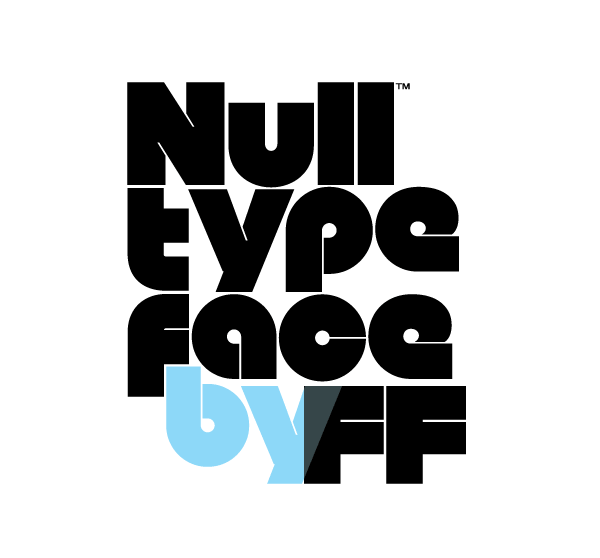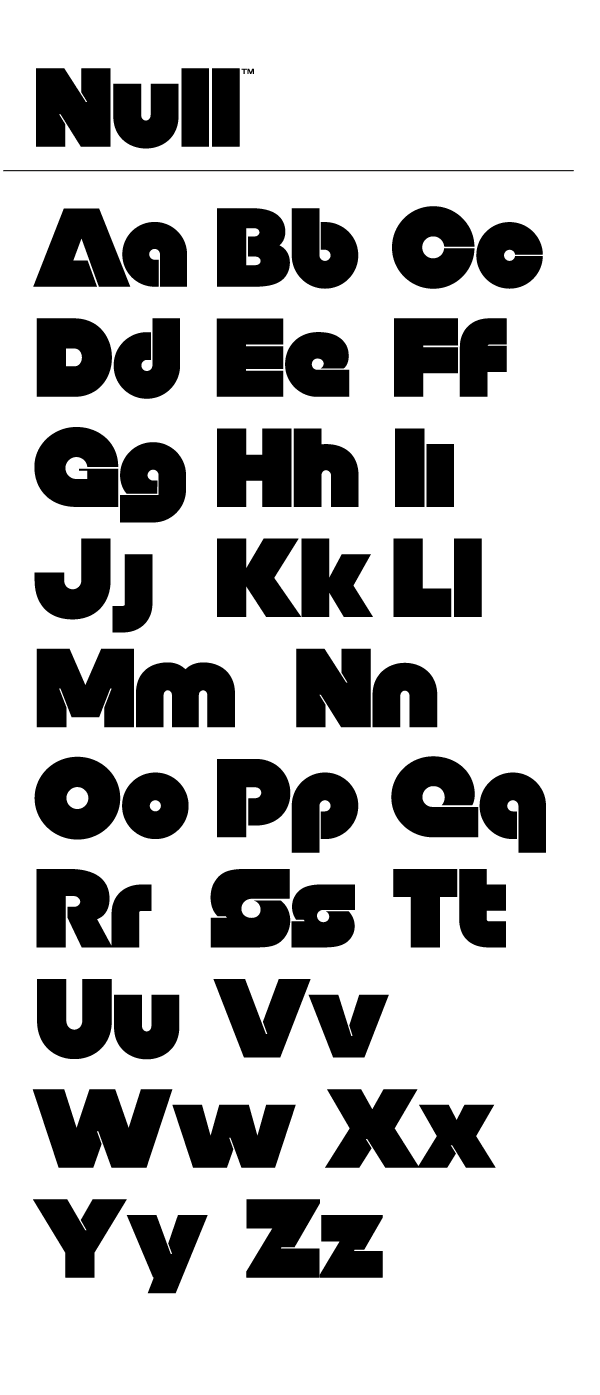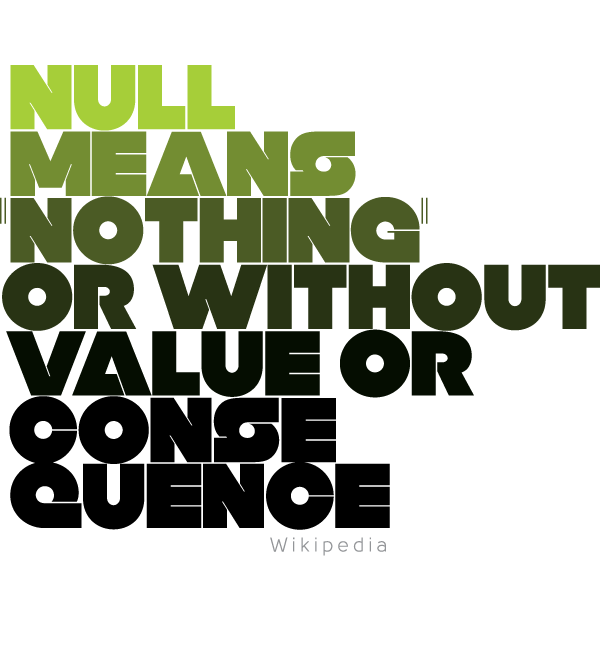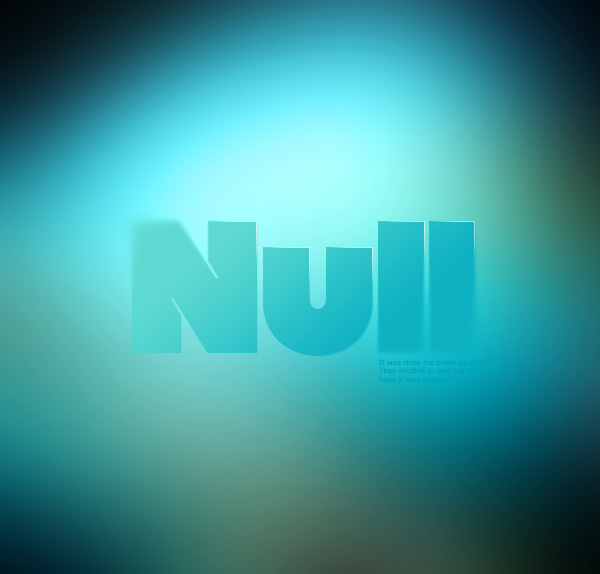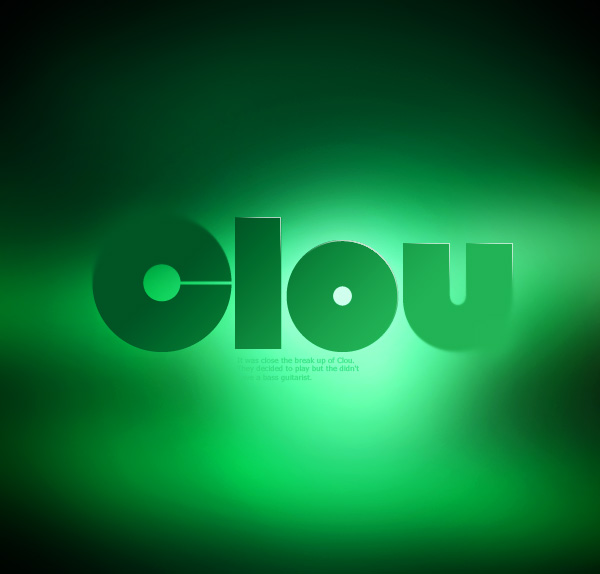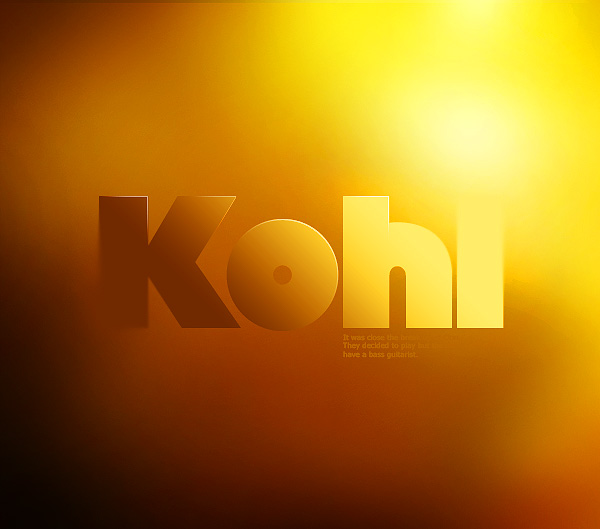
Null free font is applicable for any type of graphic design – web, print, motion graphics etc and perfect for t-shirts and other items like posters, logos.